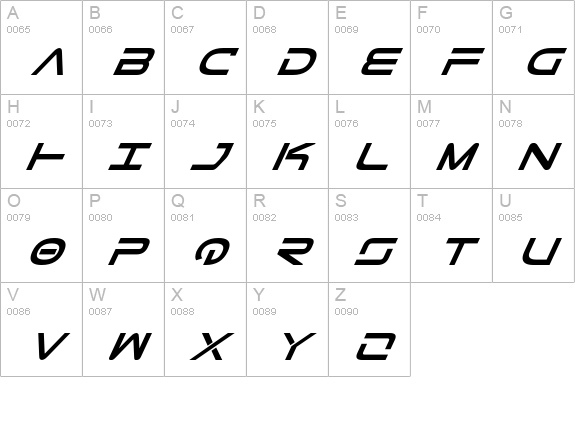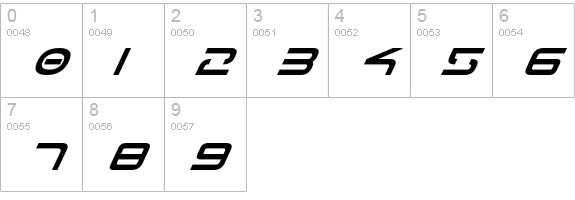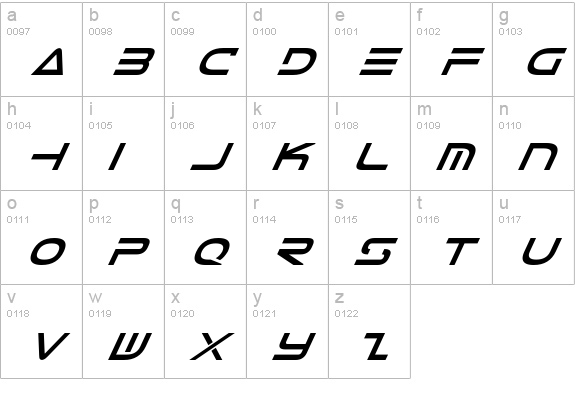
Tele-Marines Bold Italic is a strong, high-contrast, italic variant in the Tele typeface family \xE2\x80\x94 well suited to headlines, attention-grabbing titles, and strong calls-to-action.
Tele-Marines Bold Italic is a striking and dynamic font that exudes confidence and power. Its bold and italicized design adds an extra level of emphasis and flair to any text. With its unique and eye-catching style, Tele-Marines Bold Italic is perfect for headlines, titles, logos, and other design projects that require a strong and impactful visual presence. This font is a versatile tool that can be used in various creative contexts, whether it's for print or digital media. Its bold strokes and slanted letterforms give it a sense of motion and energy, making it particularly suitable for projects that aim to capture attention and leave a lasting impression. But what makes Tele-Marines Bold Italic truly special is that it is available for free. Yes, you read that right! This stunning font can be downloaded at FontsMarket.com without any cost. By offering it freely, the creators of Tele-Marines Bold Italic have made it accessible to everyone, regardless of their budget or resources. Downloading Tele-Marines Bold Italic from FontsMarket.com is a breeze. Simply visit the website, locate the font, and click the download button. In just a few seconds, you will have this powerful typeface at your fingertips, ready to elevate your designs to new heights. So why wait? Embrace the boldness and elegance of Tele-Marines Bold Italic in your next creative project. Whether you're designing a poster, a website, or a branding campaign, this font will add a touch of sophistication and strength that will make your work stand out from the crowd. And the best part? It won't cost you a penny! Download Tele-Marines Bold Italic today and let your creativity soar.